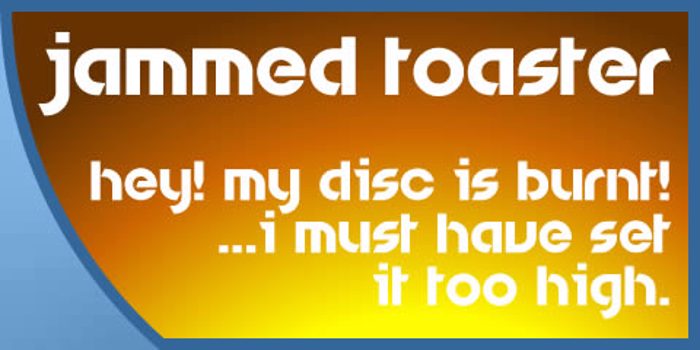
Jammed Toaster Font
11 years agoThis a great font even though I haven't downloaded it... yet. The modular design gives it a strong visual rhythm - I must find a use for this!